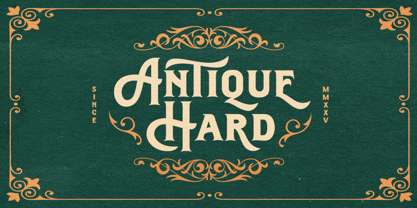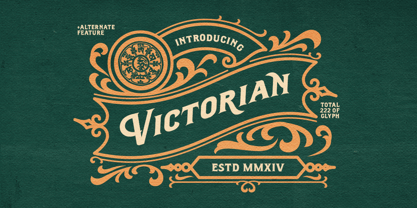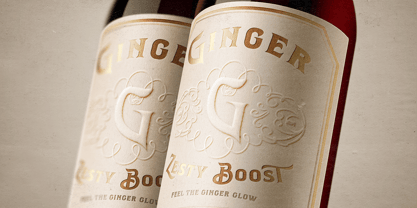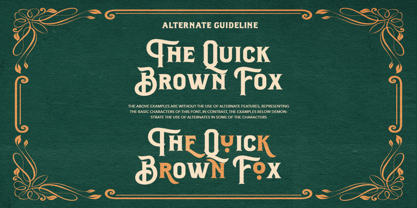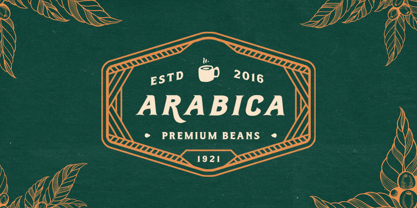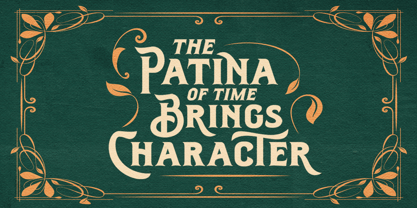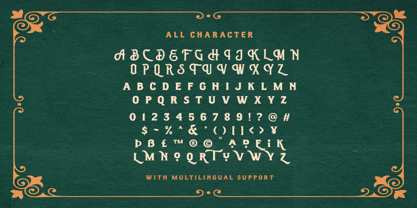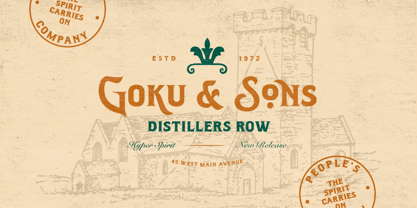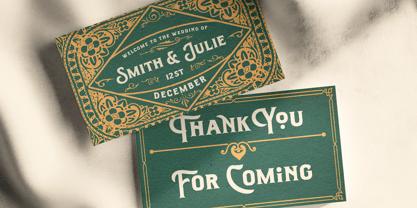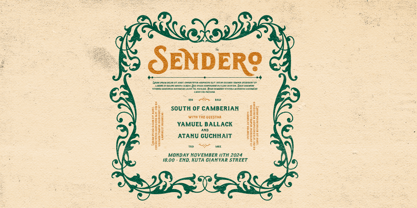
Antique Hard
by Bale Type
The Antique Hard Font Family was designed by Dzikrul Aulia and published by Bale Type. Antique Hard contains 2 styles.
Antique Hard is a bold vintage-inspired typeface that draws from classic sign painting and Victorian-era artistry. With its strong, solid presence and nostalgic charm, Antique Hard is perfect for headlines, logotypes, invitations, packaging, branding that need an old-school or victorian looks. This font also support multi language.
Designers: Dzikrul Aulia
Publisher: Bale Type
Foundry: Bale Type
Design Owner: Bale Type